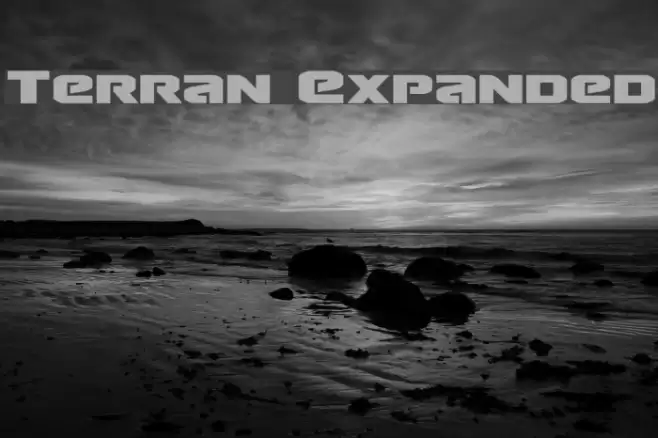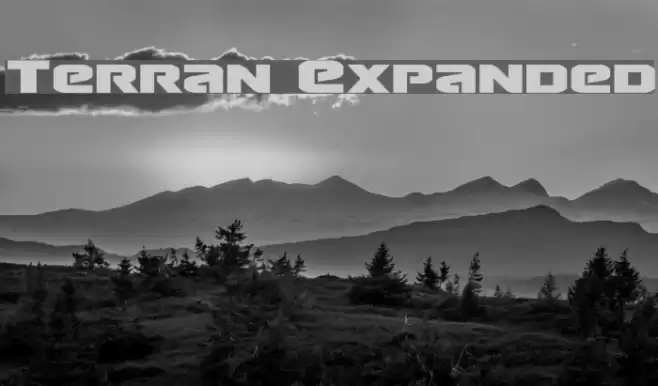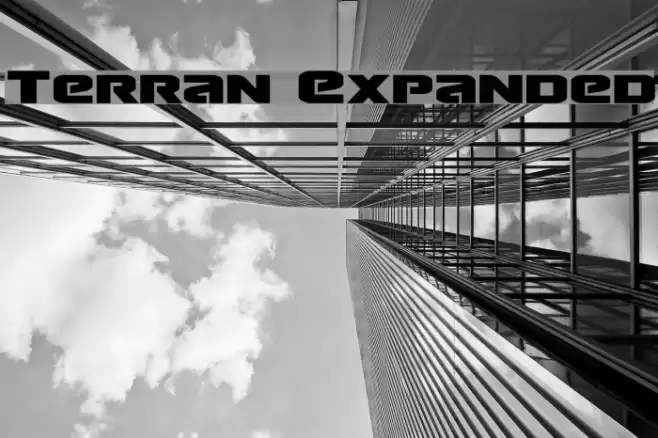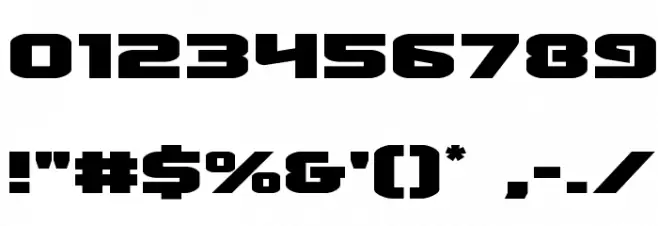
Terran Expanded Font
Terran Expanded Description
This font features a bold and futuristic design with a strong geometric structure. The characters are wide and have a distinct angular appearance, giving them a modern and technological feel. The uppercase and lowercase letters maintain a consistent style, with sharp edges and a uniform thickness throughout. The numbers and special characters follow the same design principles, ensuring a cohesive look across all elements. This font is ideal for projects that require a bold and impactful visual presence, such as technology branding, video game titles, or sci-fi themed designs.
A bold, futuristic font with a geometric and angular design from Uncategorized fonts.
- Proposed Projects: Ideal for technology branding, video game titles, sci-fi themes, and impactful headlines.
- Overall Style: Futuristic